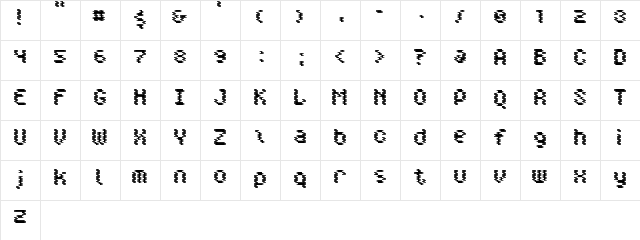
Doppler Regular
| Designer | K.Hachmang |
Design Context for Doppler Typeface
Doppler takes a measured approach to typography — its balanced proportions and neutral character make it a reliable workhorse for both digital and print work.